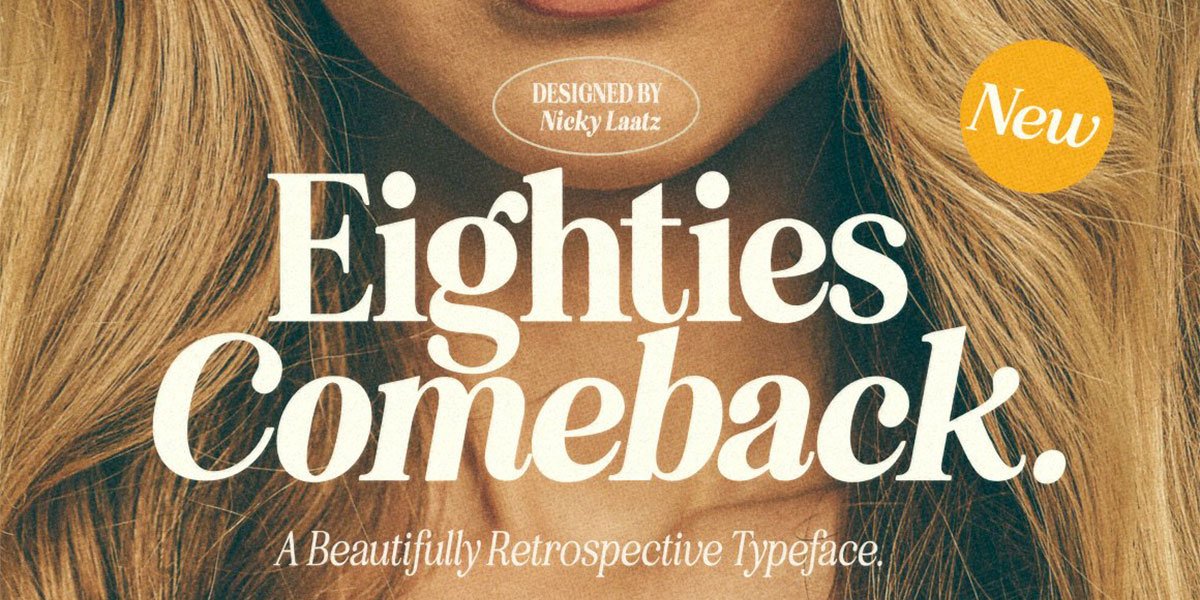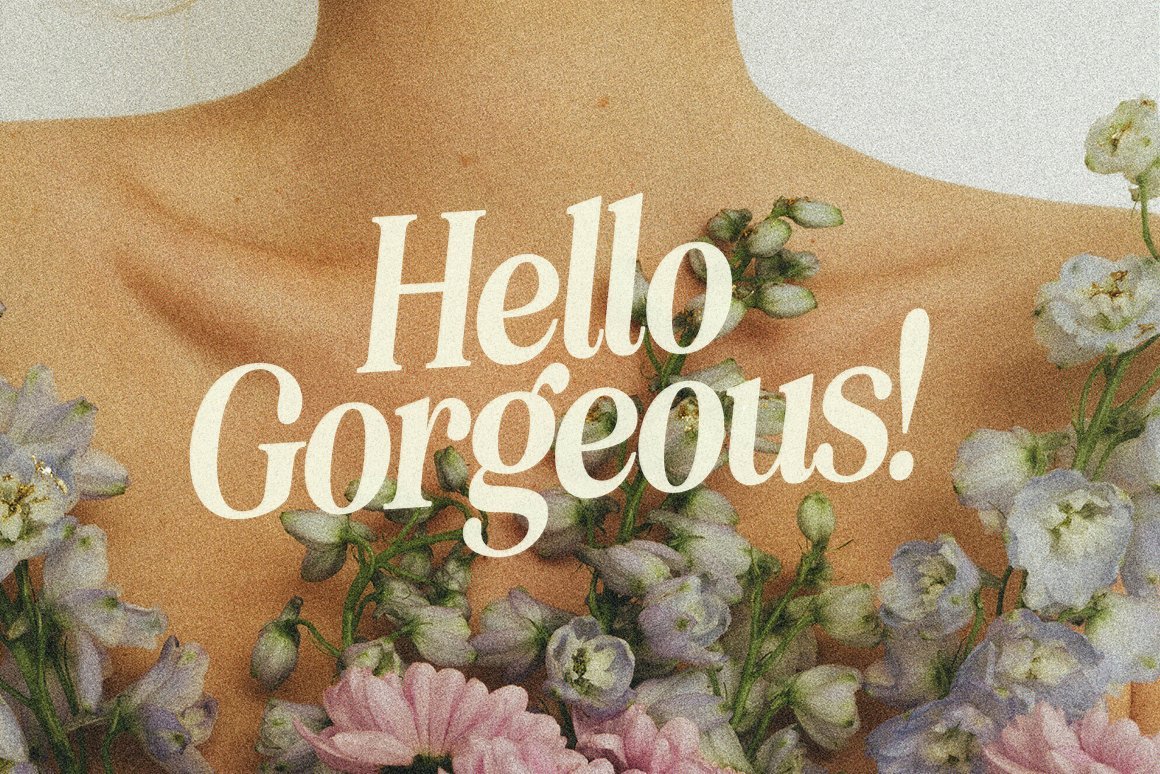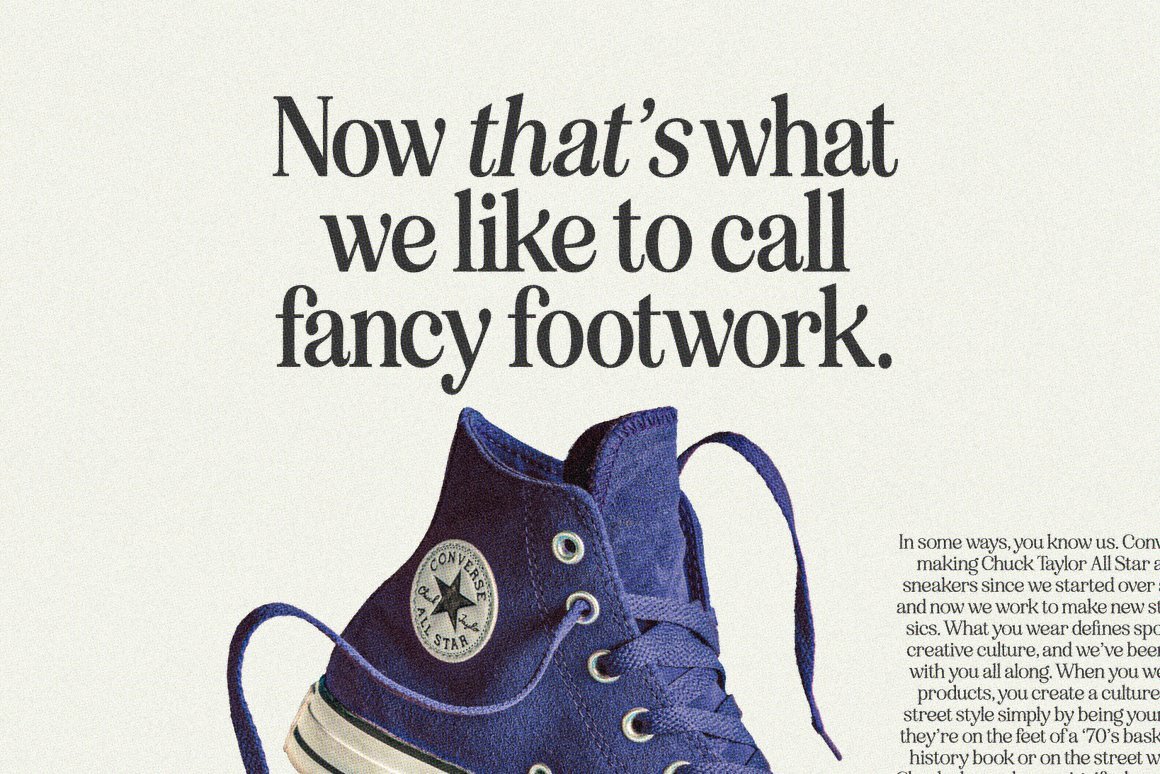
Eighties Comeback Serif (70 fonts)
Say hello to “Eighties Comeback” – A flirtatiously charming 80’s retro-inspired typeface with wonderful versatility given it includes 70 fonts. 2 Handy variable fonts are available for those who have Adobe Photoshop/Illustrator CC 2020 and up 🙂
Inspired by magazine adverts from the 70s and 80s. This family fits right in with bringing retro back into the 21st century. Super-versatile have a scroll through all the previews. Eighties Comeback can manifest the possibilities are really quite endless.
- 70 fonts for Eighties Comeback are regular and Italic. It varies from light to black in weight, and ultra condensed to Regular in width.